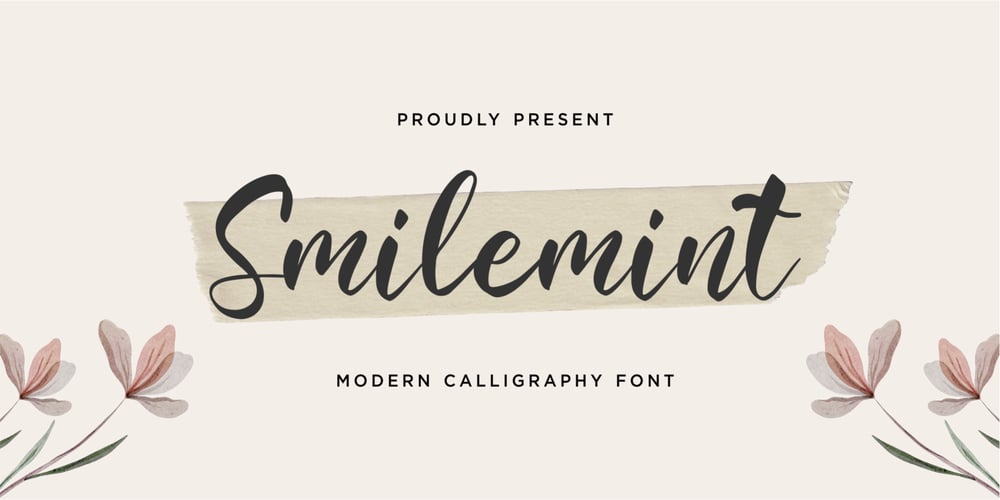
Smilemint Font Family was designed by Suhery Anto, Odies Dwi Yudhistira and published by Qwrtype Foundry. Smilemint contains 1 styles and family package options. Proudly presenting: Smilemint is a modern calligraphic font.Smilemint is perfect for product packaging, branding projects, magazines, social media, wedding invitations, or just used to express words above the background.Smilemint also comes with multillingual support.Enjoy the font, thank you!